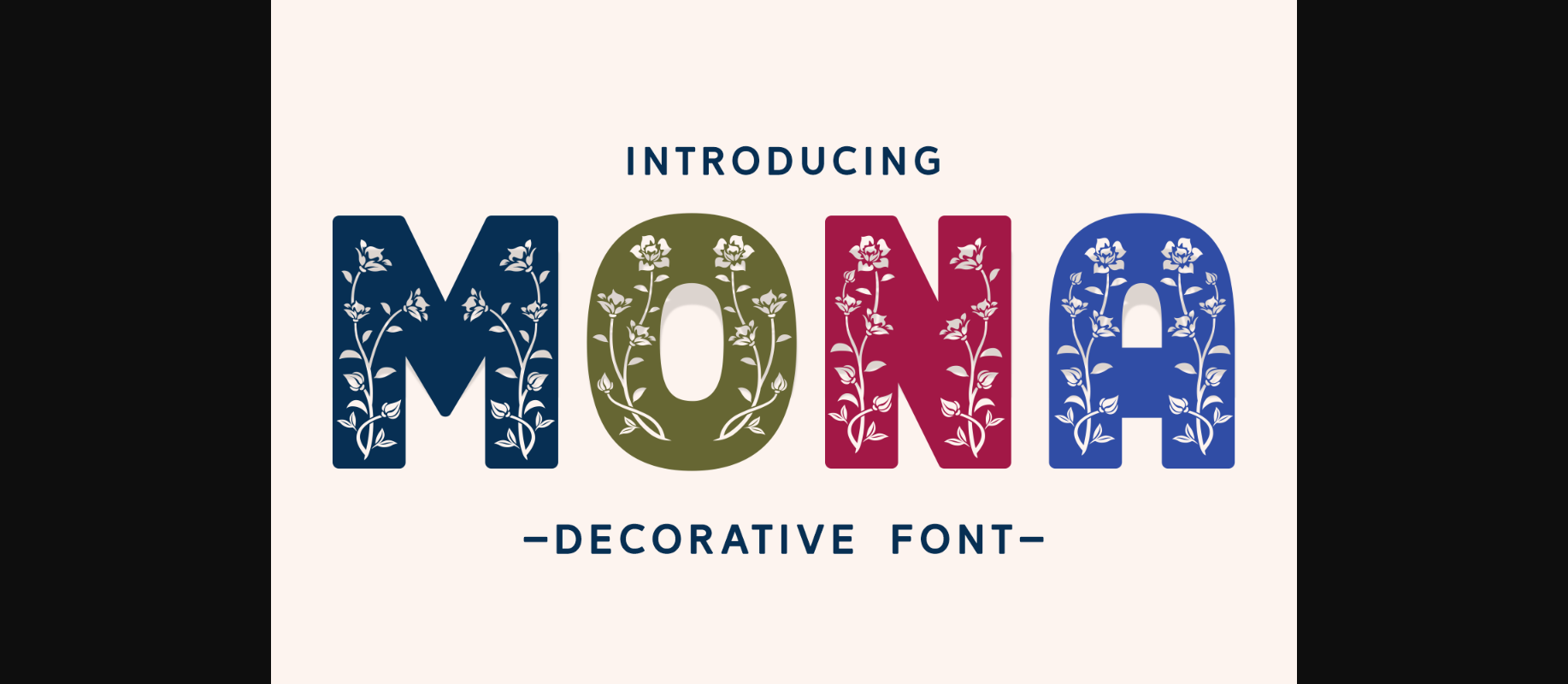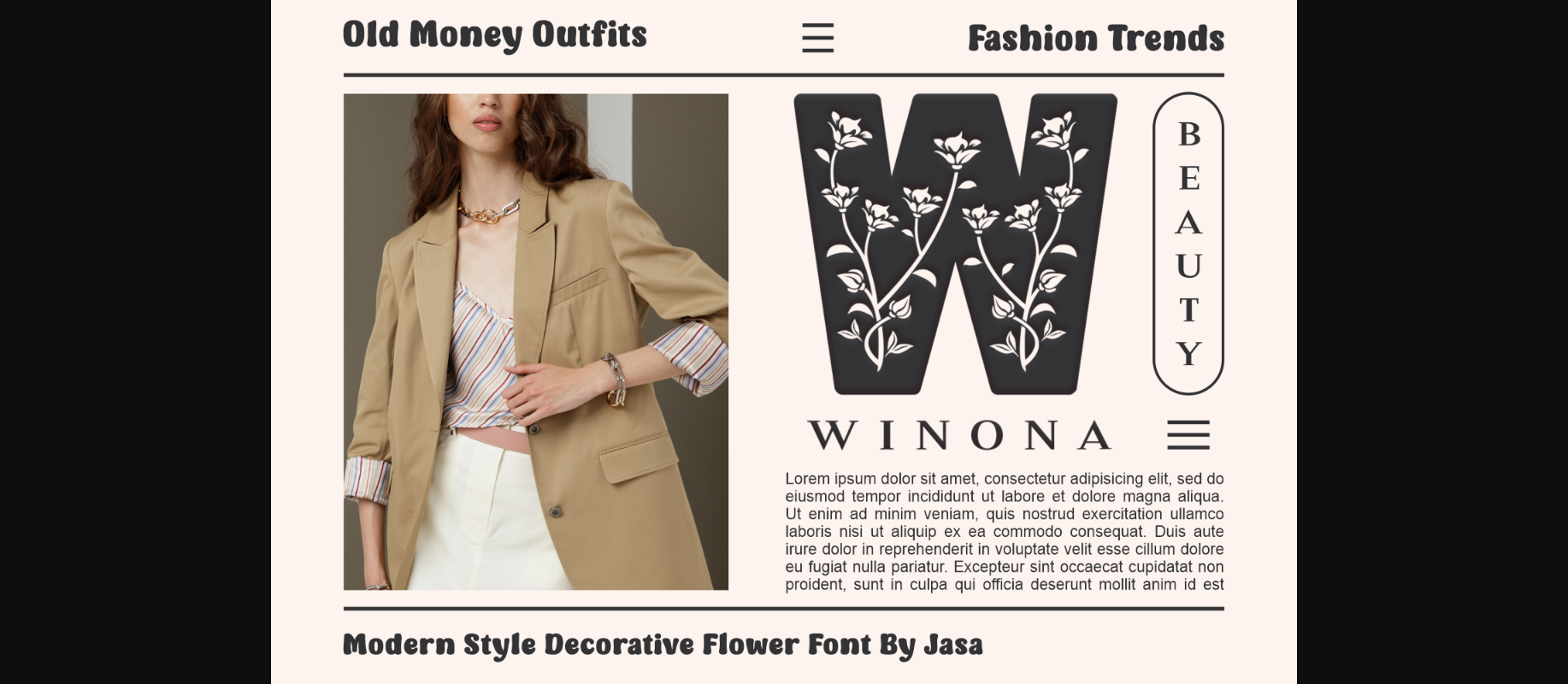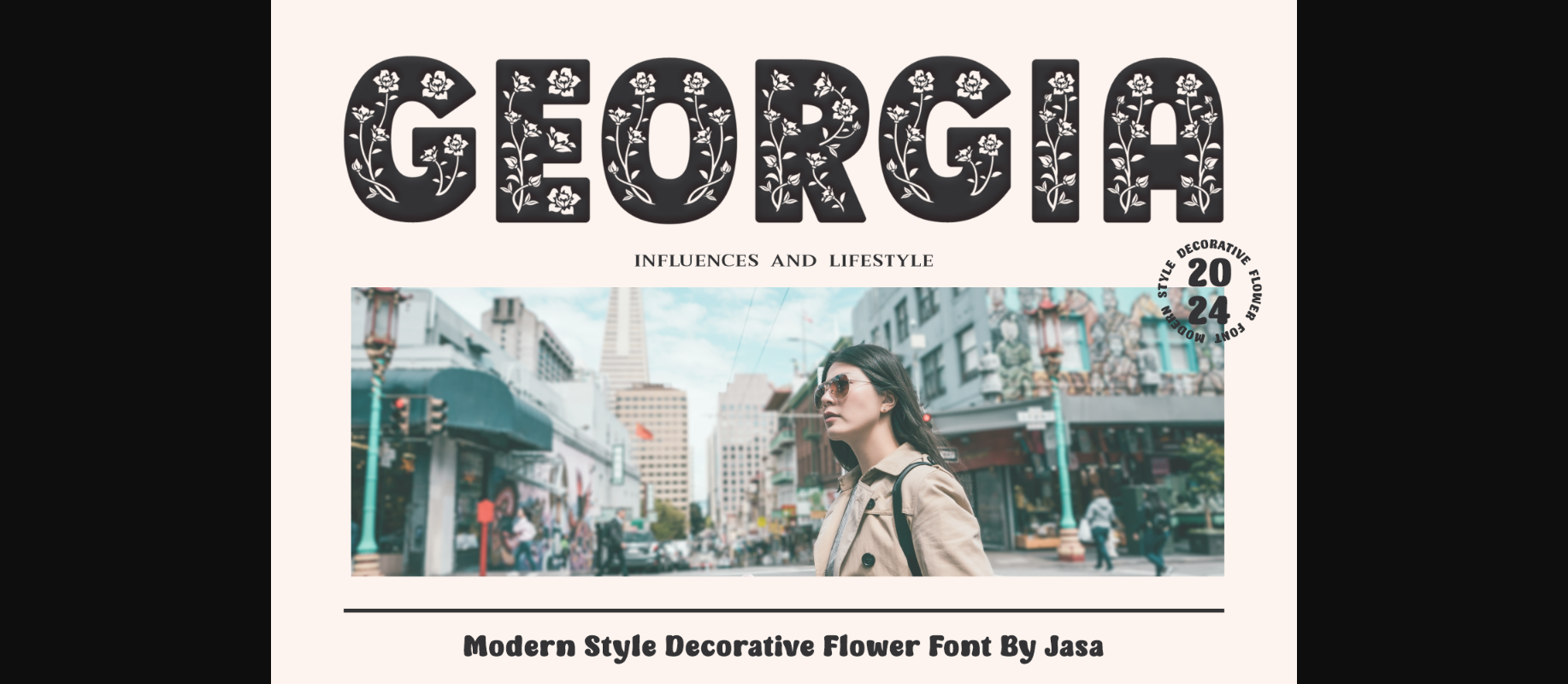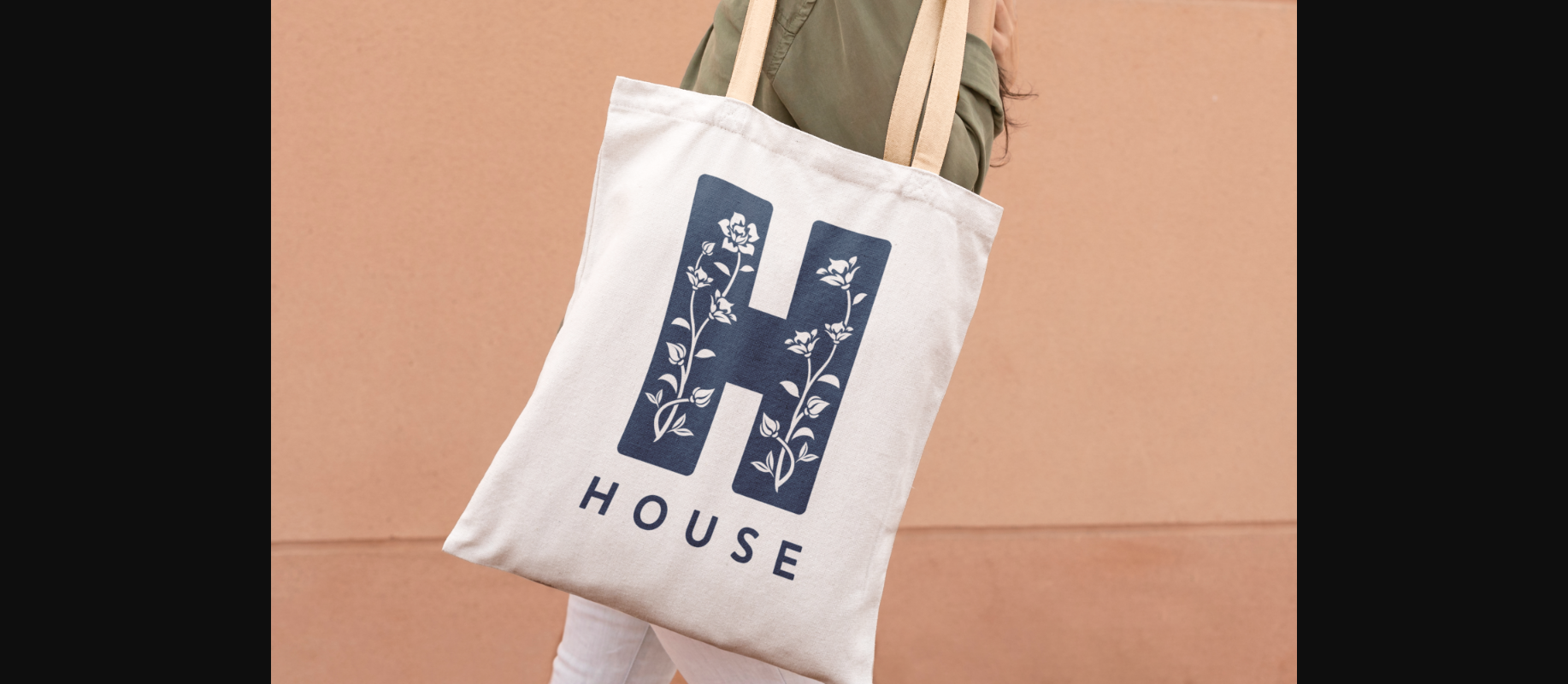
About Mona Font
Mona is a creative and beautiful decorative font. It includes characters with floral patterns. It can be used for headlines, titles, logos, posters, signage, branding materials, and more, adding a bold and expressive touch to any project.